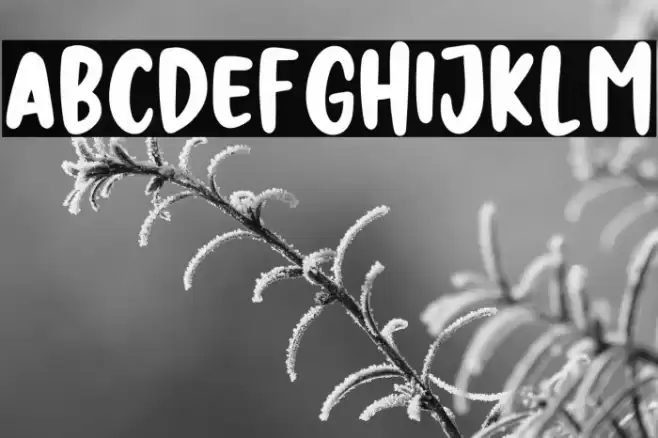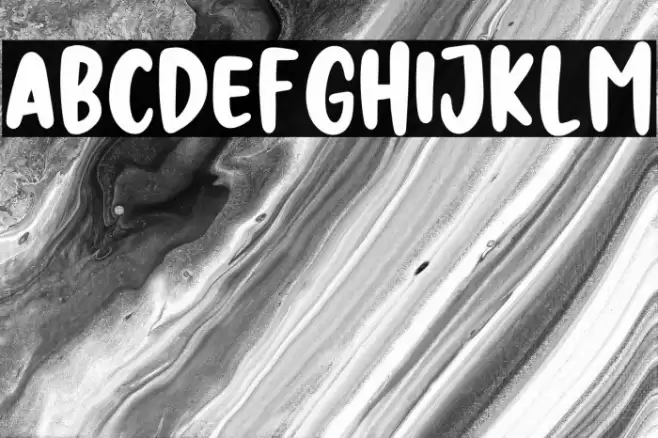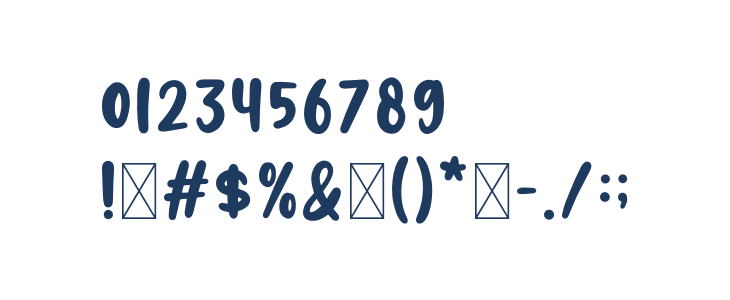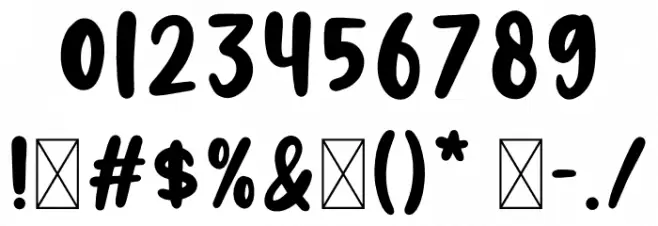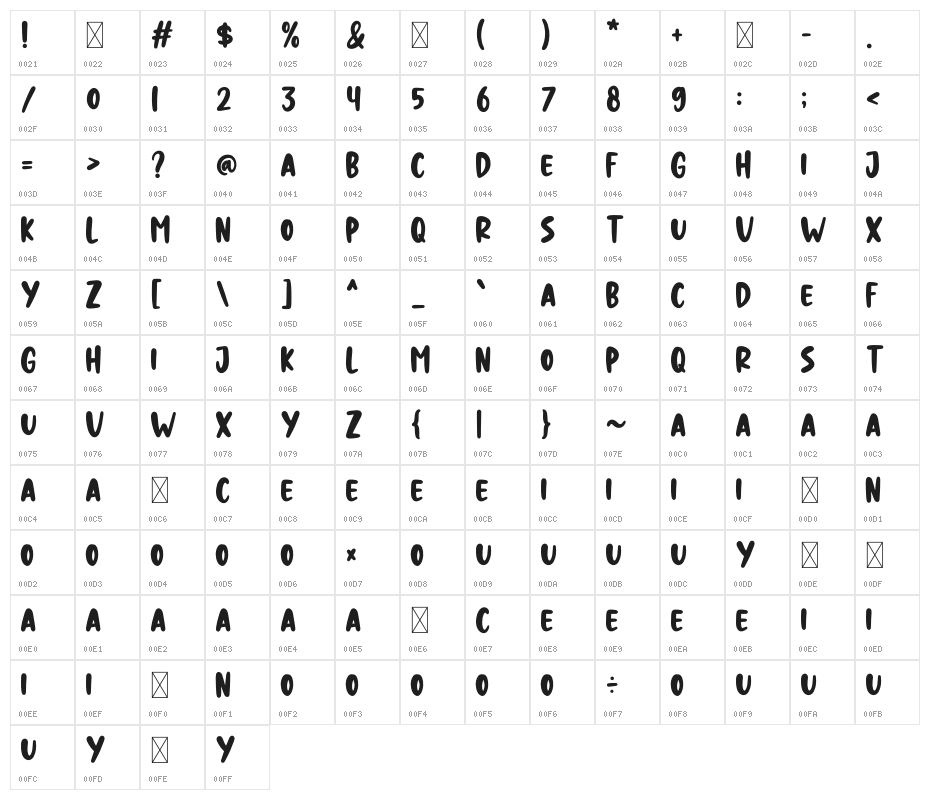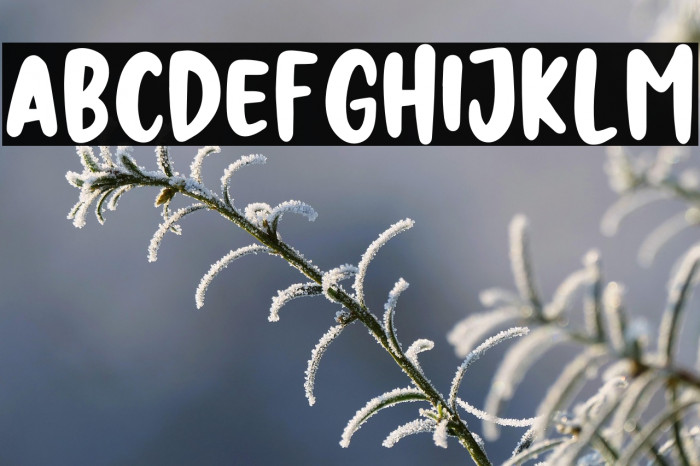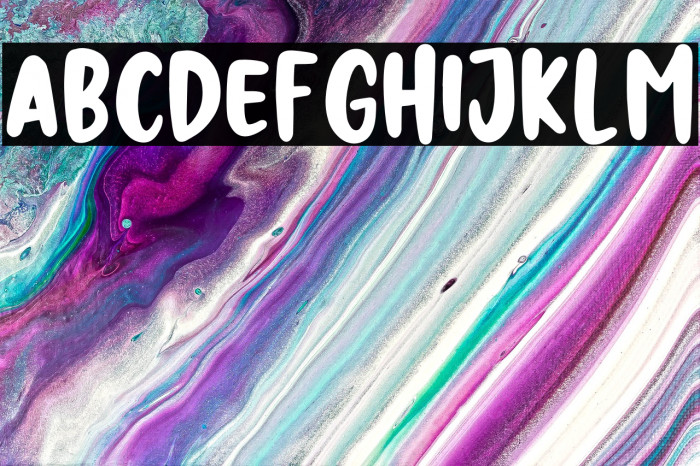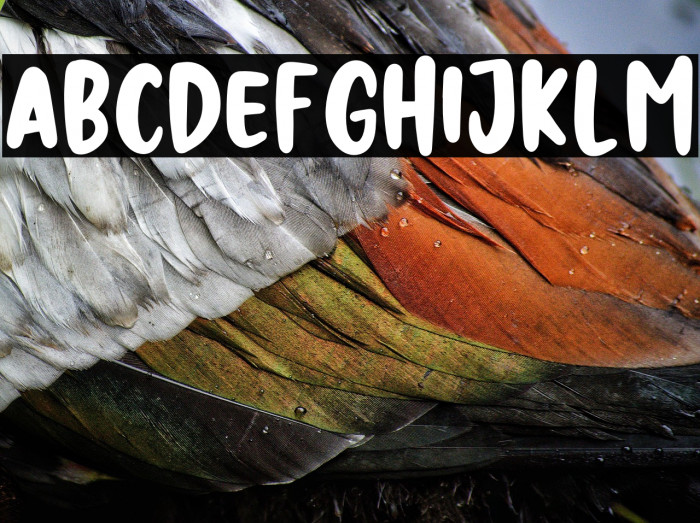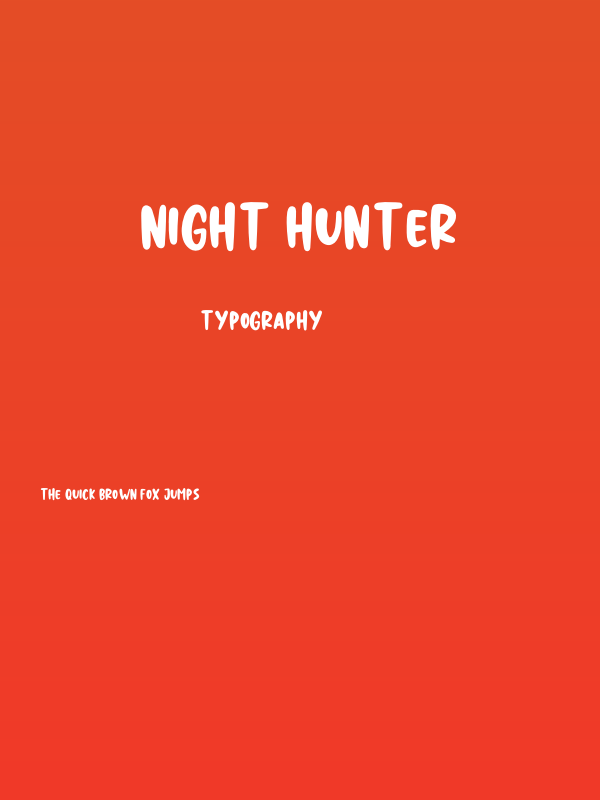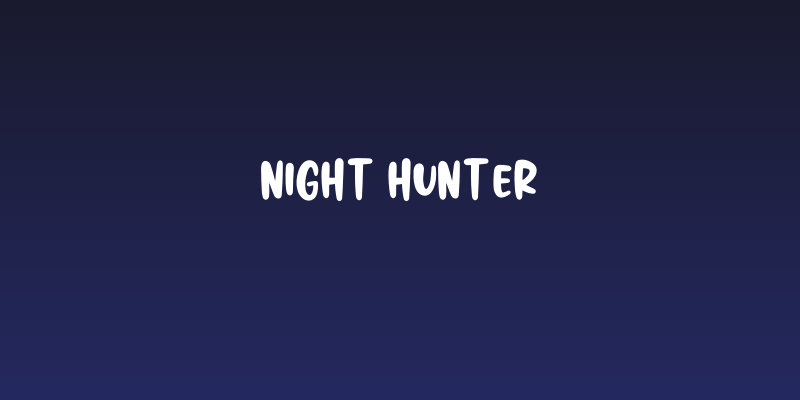
NIGHT HUNTER Font
NIGHT HUNTER Description
This font features bold, rounded characters with a playful and energetic style. The uppercase and lowercase letters are consistent in their rounded forms, giving a cohesive look across the alphabet. The numbers and special characters maintain this playful aesthetic, making the font suitable for informal and creative projects. The strokes are thick and uniform, providing a strong presence on the page. The overall design is approachable and friendly, with a touch of whimsy that makes it stand out. The font's boldness ensures readability while its unique style adds character to any text.
A bold, rounded, and playful font with a friendly and energetic style from Cartoon fonts.
- Font: NIGHT HUNTER
- Proposed Projects: Ideal for children's books, playful branding, posters, and social media graphics.
- Overall Style: Playful, Energetic, Friendly